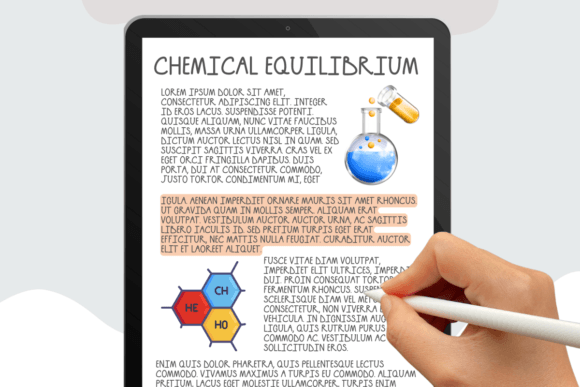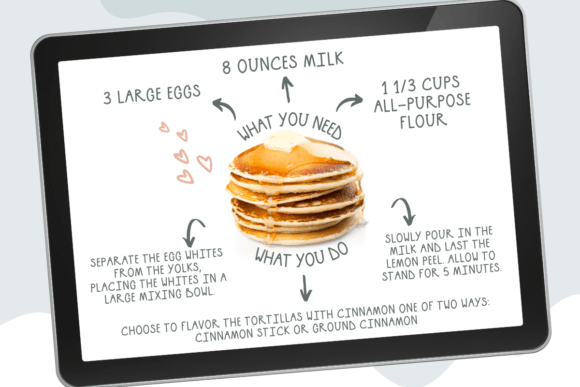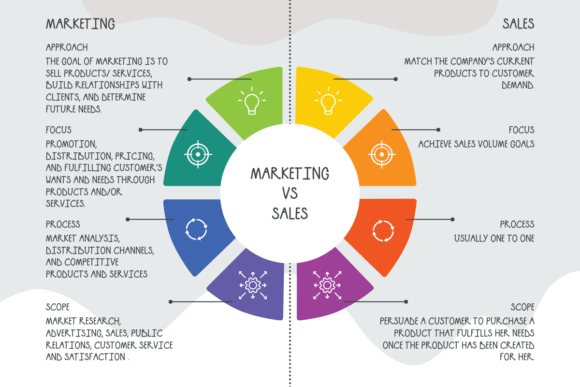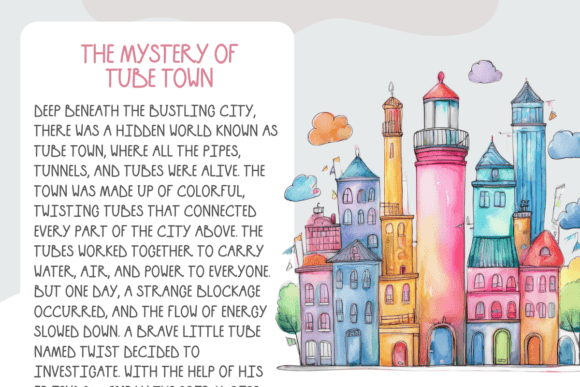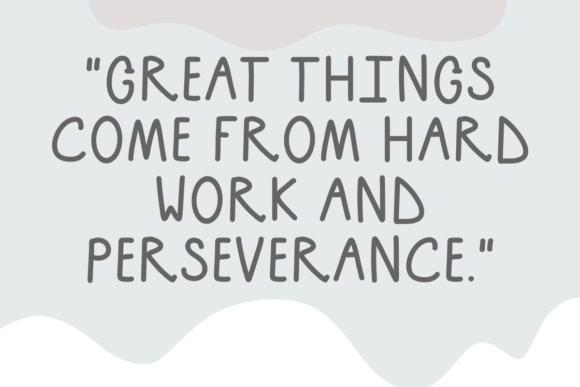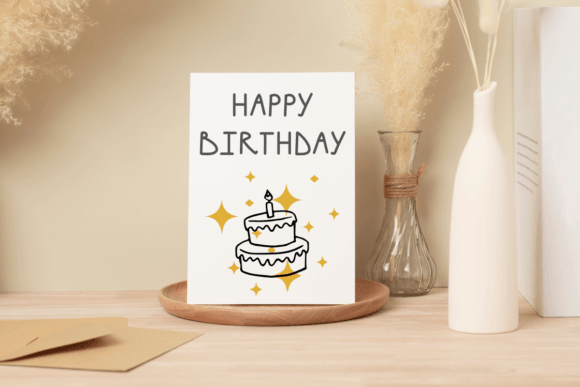
Introduction to Relax Tube Font
Relax Tube is a cute handwritten font, perfect for digital note-taking.
Its versatility makes it ideal for various projects such as Procreate designs, blog posts, logos, branding, digital planners, invitations, greeting cards, photo albums, and much more .
Key Features of Relax Tube Font
Why Choose Relax Tube Font?
Relax Tube Font offers exceptional quality and versatility, making it a valuable addition to your design toolkit. Whether you’re creating for personal projects or commercial use, Relax Tube Font delivers professional results.